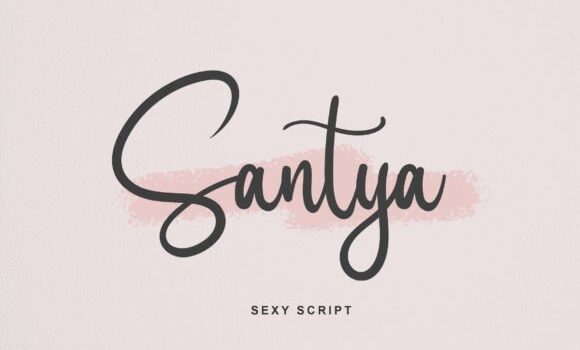
santya
Santya Font - Featured Image
Santya Font – Free Download Introduction to Santya Font Santya is a brand new lovely script font ready for your new projects. 📸 Preview Gallery 5 images 📌 Product Name Santya Font 👤 Author Creative Fabrica Author 📂 Category Explore